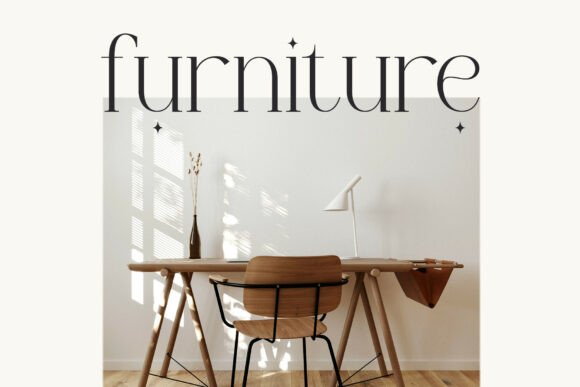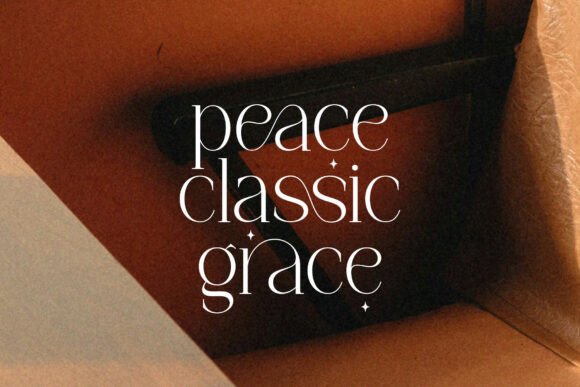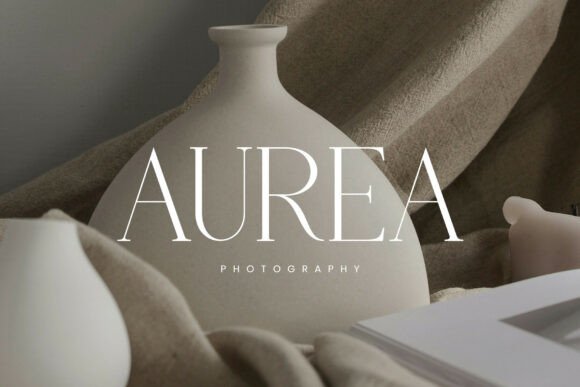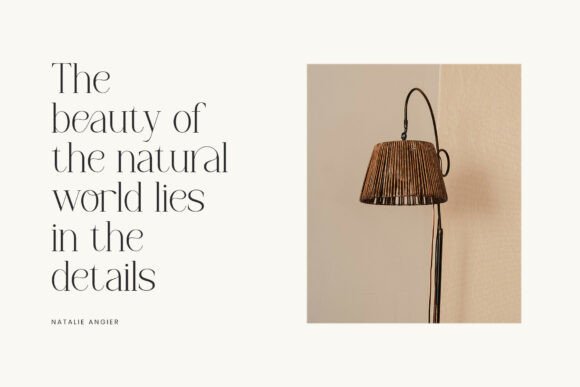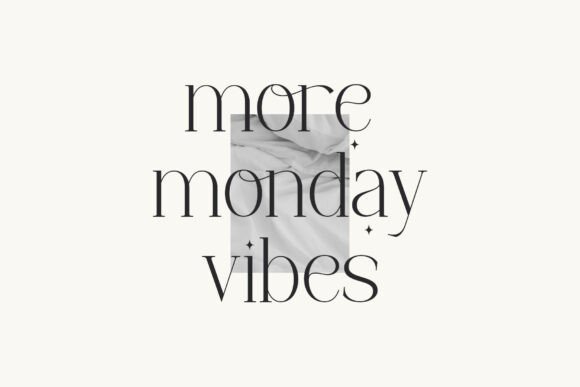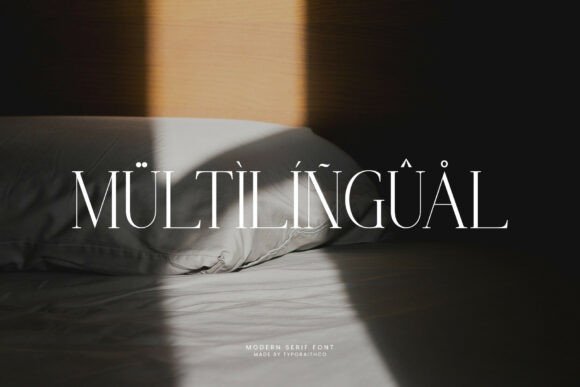
Introducing Another Dreams Font: Elevate Your Designs with a Touch of Whimsy
In the world of typography, fonts play a crucial role in conveying the tone and personality of a brand or design. If you’re looking for a font that can infuse your projects with a sense of wonder and elegance, look no further than Another Dreams. This modern serif display font is designed to capture the fleeting beauty of a dream, offering a professional foundation for designs that need to feel light, airy, and undeniably chic.
The Characteristics of Another Dreams Font
Another Dreams Font is characterized by its tall, slender stems and artistic, sweeping curves. These distinctive features give the font a sense of sophistication and refinement, making it perfect for designs that require a touch of luxury and elegance. The font’s modern serif design ensures that it remains legible and versatile, suitable for a wide range of applications.
Best Use Cases for Another Dreams Font
Another Dreams Font is a versatile typeface that can be used in various design projects. Here are some of the best use cases for this beautiful font:
- Fragrance branding: The elegant and refined design of Another Dreams Font makes it an excellent choice for fragrance branding. Whether you’re creating a logo, packaging, or advertising materials, this font is sure to convey a sense of sophistication and luxury.
- Dreamy wedding stationery: Another Dreams Font is perfect for wedding stationery, such as invitations, save-the-date cards, and thank-you notes. Its whimsical and romantic feel will add a touch of magic to your wedding designs.
- Boutique identity design: If you’re designing a logo or brand identity for a boutique or small business, Another Dreams Font is an excellent choice. Its unique and artistic design will help your client stand out from the competition.
- Social media quotes for influencers: Another Dreams Font is also great for creating social media quotes and graphics for influencers. Its light and airy feel will add a touch of elegance to your designs, making them perfect for Instagram, Facebook, and Twitter.
Why Choose Another Dreams Font?
There are many reasons why you should choose Another Dreams Font for your design projects. Here are a few:
- Unique and artistic design: Another Dreams Font has a distinctive and artistic design that will add a touch of elegance and sophistication to your projects.
- Versatile and legible: The font is highly legible and versatile, making it suitable for a wide range of applications, from branding and advertising to wedding stationery and social media graphics.
- Professional and refined: Another Dreams Font has a professional and refined feel that will elevate your designs and make them stand out from the competition.
Tips for Using Another Dreams Font
Here are a few tips for using Another Dreams Font in your design projects:
- Use it sparingly: Another Dreams Font is a display font, so it’s best to use it sparingly to create a sense of drama and emphasis.
- Pair it with a sans-serif font: Pairing Another Dreams Font with a sans-serif font will create a nice contrast and add visual interest to your designs.
- Experiment with different colors: Another Dreams Font looks great in a variety of colors, so don’t be afraid to experiment and find the perfect hue for your design.
| Author | Typoraith Co |
In conclusion, Another Dreams Font is a beautiful and versatile typeface that can add a touch of elegance and sophistication to your design projects. Its unique and artistic design, combined with its legibility and versatility, make it an excellent choice for a wide range of applications. Whether you’re creating fragrance branding, dreamy wedding stationery, boutique identity design, or social media quotes for influencers, Another Dreams Font is sure to elevate your designs and make them stand out from the competition.